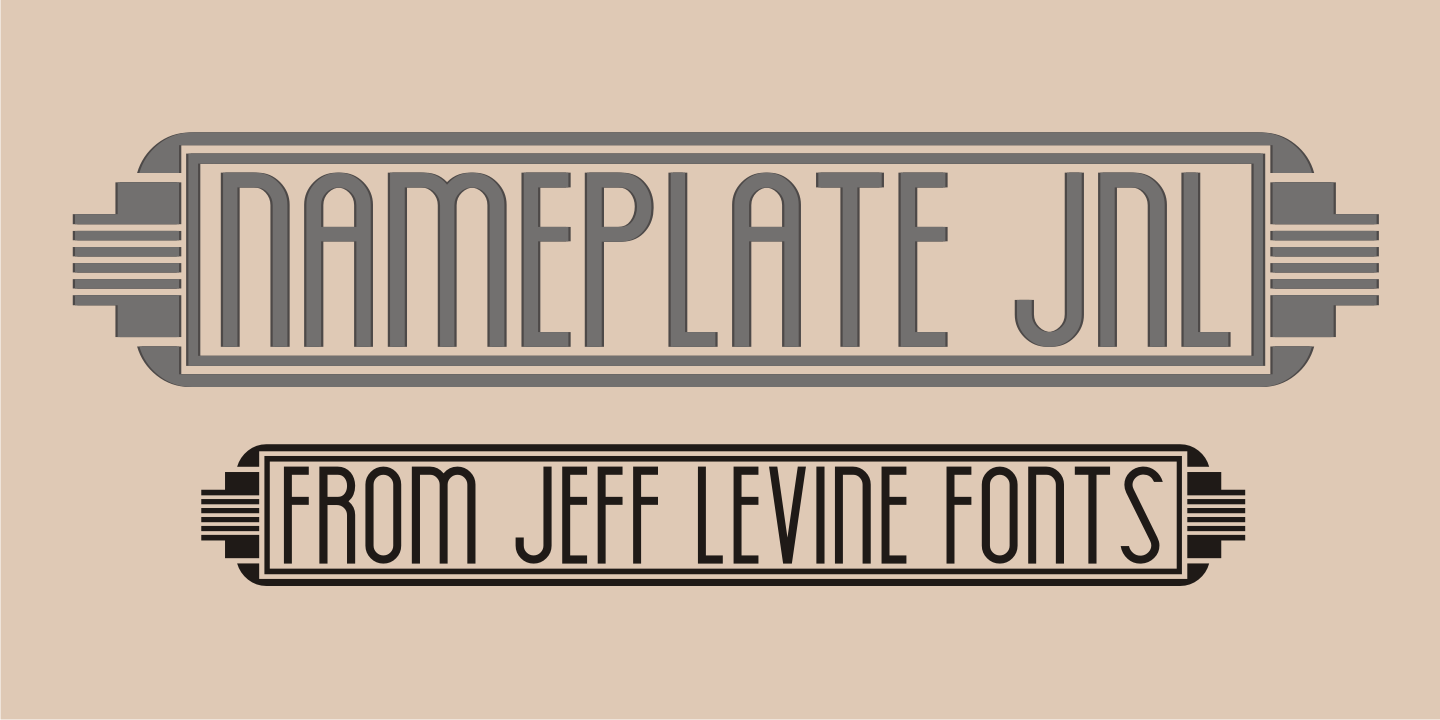
Nameplate JNL Font Free Download is a vintage-inspired display typeface that captures the classic elegance of engraved nameplates and traditional signage. Its clean lines, bold structure, and timeless design make it an excellent choice for branding, retro-themed projects, packaging, book covers, and formal event invitations.
The font’s strong character and excellent readability make it highly effective for headlines, logos, and other prominent text applications. Nameplate JNL brings a sense of tradition, authority, and sophistication to any design, making it ideal for projects that require a refined and historical aesthetic.
Nameplate JNL is a valuable addition to any designer’s collection, offering classic style and strong visual impact for a variety of formal and vintage-themed design projects.